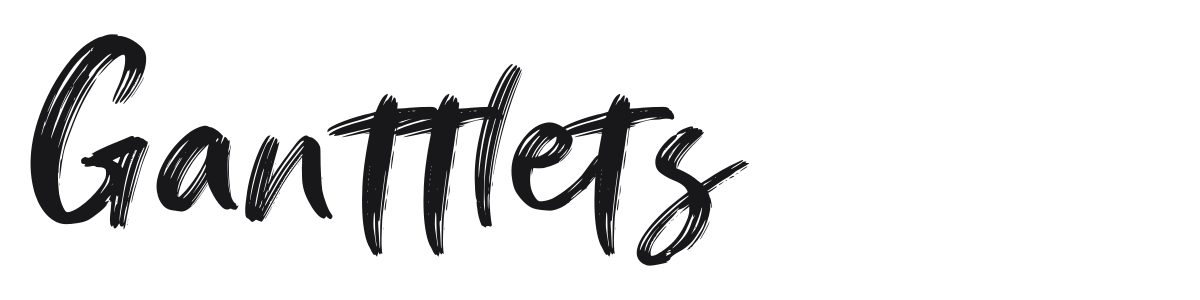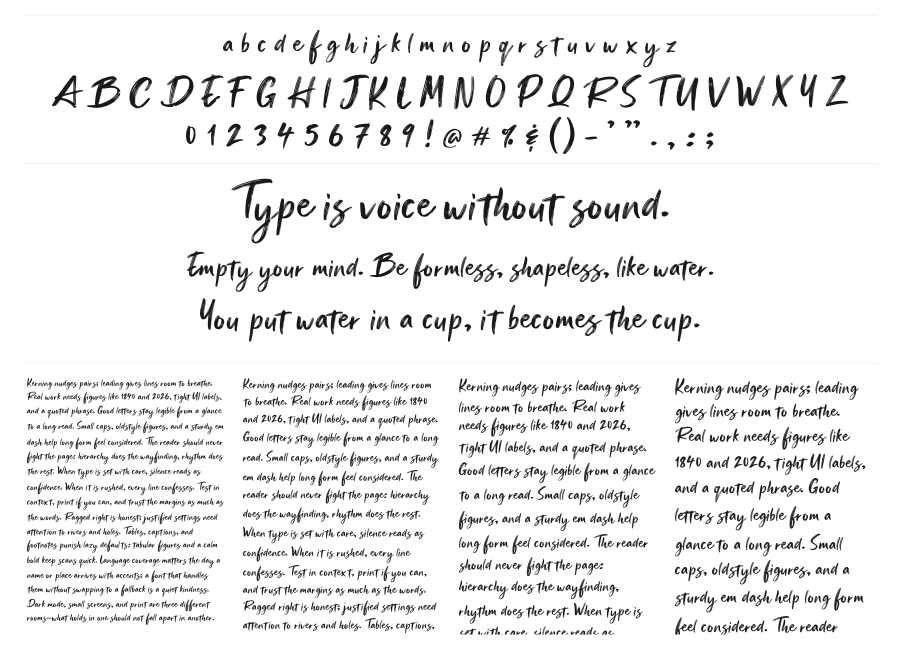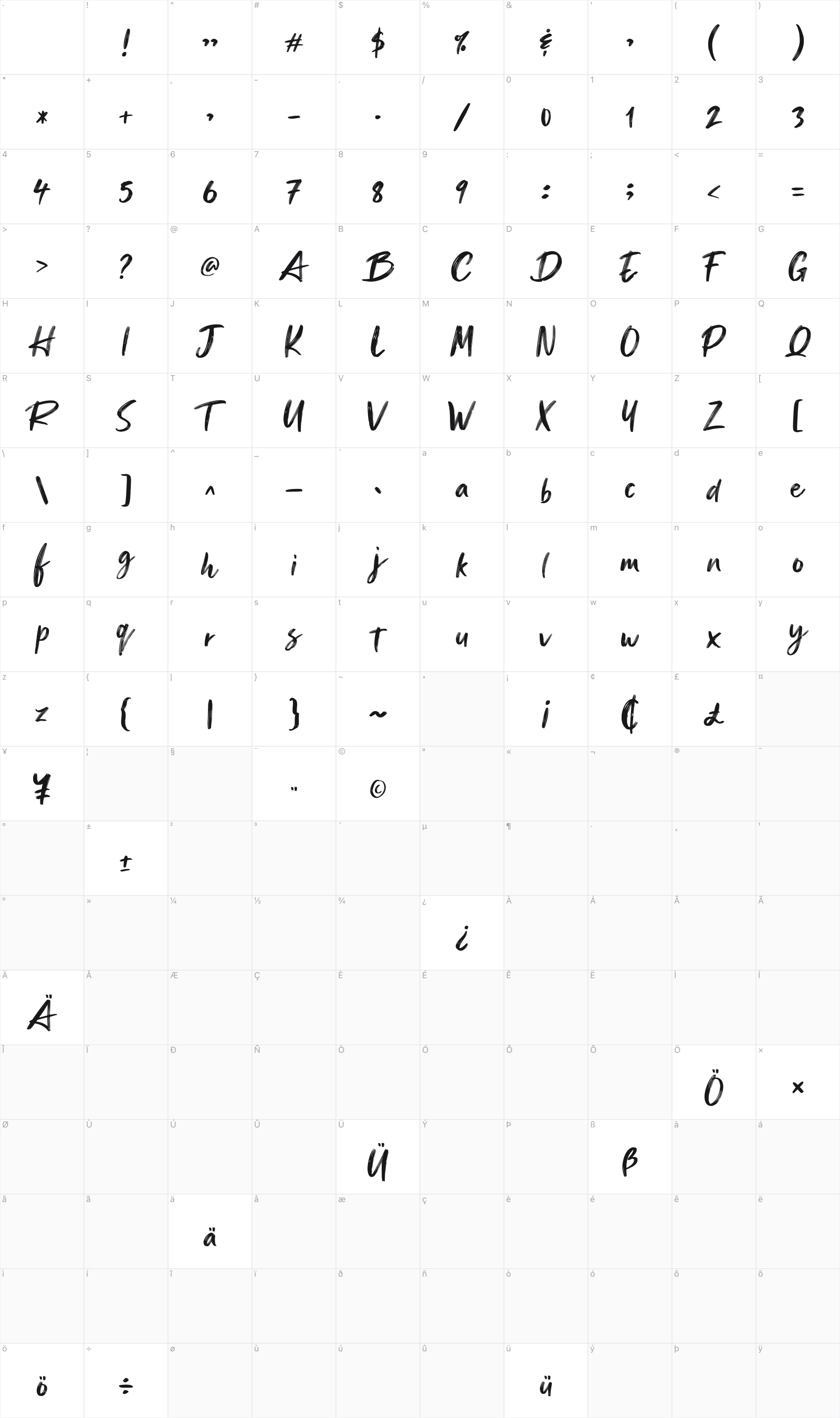
Ganttlets
Ganttlets is a casual brush script with the raw, energetic quality of hand-lettering done at speed with a loaded brush. Thick downstrokes bleed into hairline connectors, and the rough ink texture keeps it grounded and authentic. It reads clearly at large sizes while retaining the kind of looseness that makes it feel genuinely hand-drawn rather than manufactured.